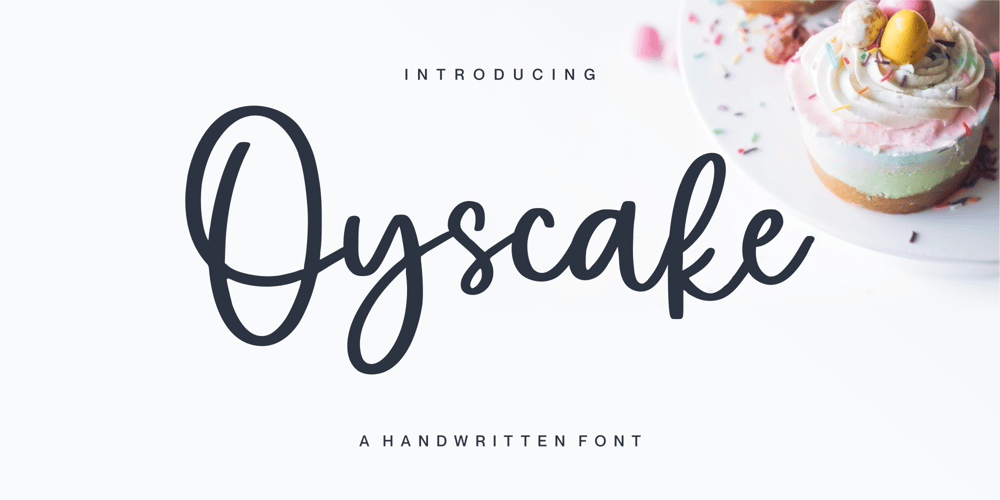
Oyscake Font Family was designed by Fachrizal Yusuf and published by Allouse Studio. Oyscake contains 1 styles and family package options. Proudly Present, Oyscake a Handwritten Font.Oyscake is perfect for any titles, logo, product packaging, branding project, megazine, social media, wedding, or just used to express words above the background.Oyscake also come with Multi-Lingual Support.Enjoy the font, feel free to comment or feedback, send me PM or email.